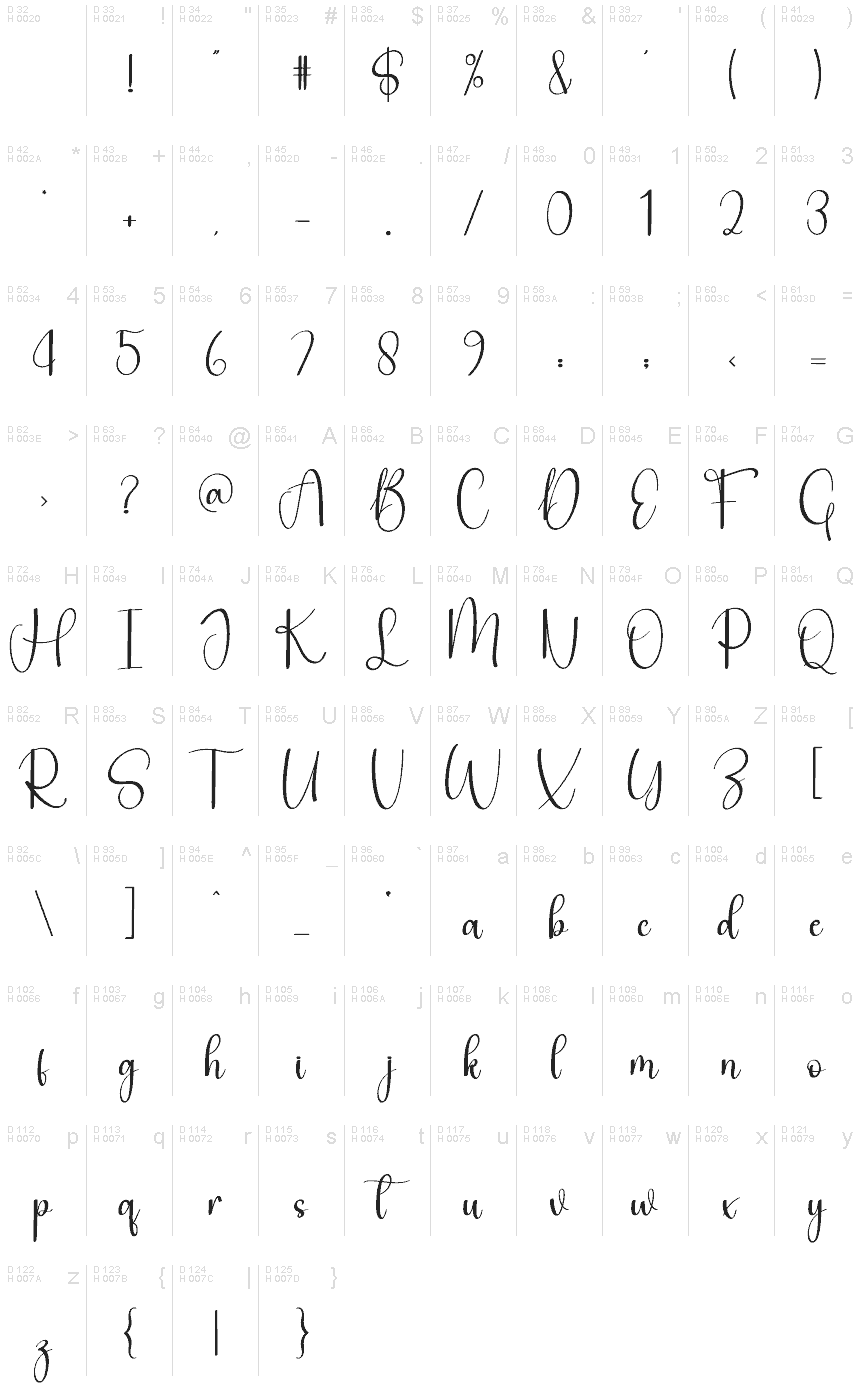
Gogila
Gogila font is a handwritten font designed by Scratchones. The naturally flowing letters produce elegant results, modern designs with classy and classic touches. It’s an expressive tool that carries within it beautiful script elements, graceful curves, and decorative swashes.